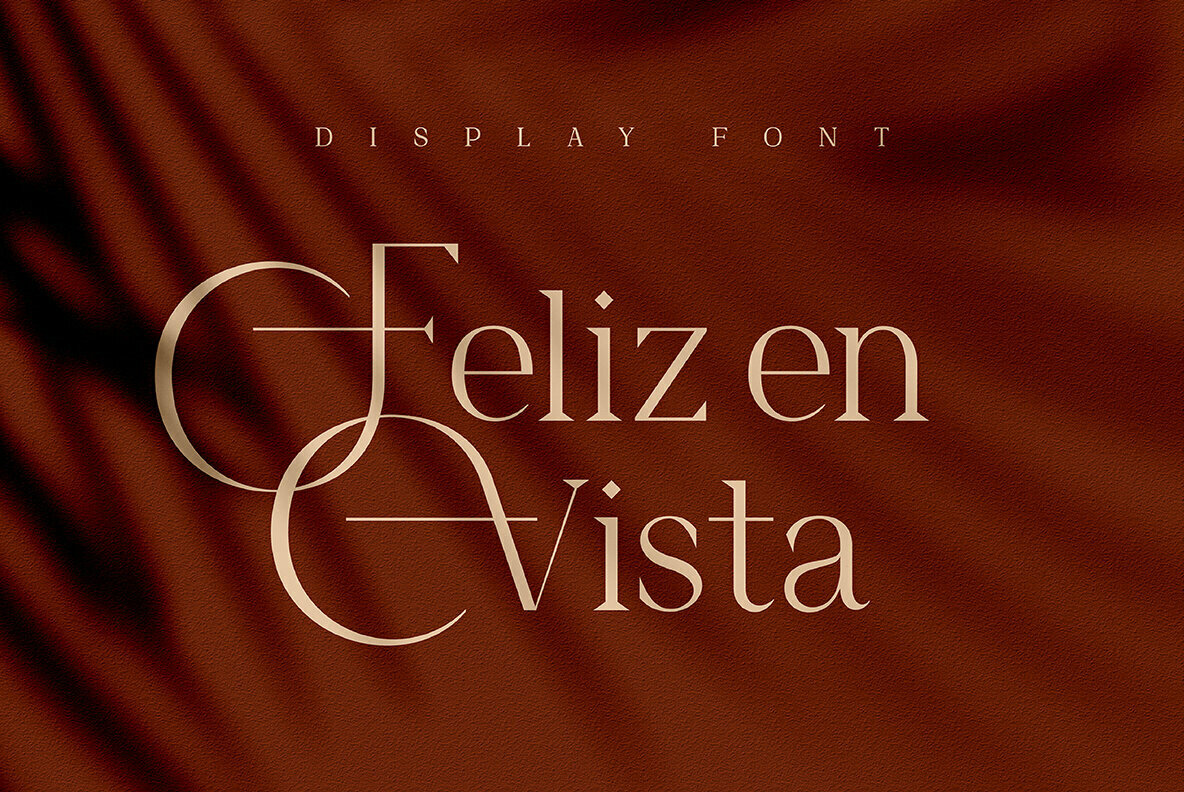
Feliz en Vista Font
Feliz en Vista Font is perfect for celebration event invitations, festive branding, holiday marketing campaigns, party planning materials, joyful social media graphics, carnival posters, birthday party decorations, cultural festival signage, entertainment venue promotions, cheerful greeting cards, vibrant packaging design, and uplifting motivational content.
What makes Feliz en Vista Font exciting is its infectious joy that radiates happiness and celebration through exuberant letterforms that capture the spirit of life's most precious moments. This delightful typeface embodies pure festive energy, combining playful curves with confident strokes that instantly elevate mood and create emotional connection with audiences seeking positivity and celebration. The font's spirited character and dynamic presence make it perfect for brands and events that want to communicate pure joy, cultural richness, and the universal language of happiness. Its vibrant personality transforms ordinary communications into memorable celebrations that resonate with people's desire for connection and joyful experiences.
The Feliz en Vista Font family includes regular, medium, and bold weights, featuring festive alternates, celebratory ligatures, and joyful decorative elements. The character set incorporates party-inspired symbols, cheerful numerals, and expressive punctuation marks that enhance the font's celebratory character and provide designers with comprehensive festive design options.
Whether you're creating celebration brand identities, designing party marketing materials, or developing joyful event communications, Feliz en Vista Font Free Download delivers the infectious happiness your celebratory projects need. This premium display font excels in applications where emotional connection and memorable experiences are crucial for audience engagement and brand recognition. The font's festive qualities work beautifully across digital platforms and print applications, making it an invaluable asset for designers creating engaging, celebration-focused content. Event companies and entertainment brands choose this font for its ability to communicate pure joy while maintaining professional quality and commercial appeal. The comprehensive character support includes international symbols, expanding its usability for global celebration applications and multicultural festive projects. Professional designers appreciate its perfect balance of exuberance and readability, ensuring projects remain both emotionally impactful and highly functional. When you incorporate this exceptional typeface into your celebratory communications, you're selecting a typography solution that celebrates life's joyful moments and cultural diversity, ensuring your brand connects with audiences seeking happiness, connection, and meaningful celebration in today's fast-paced world while maintaining the festive authenticity essential for success in entertainment and event industries that create lasting memories.